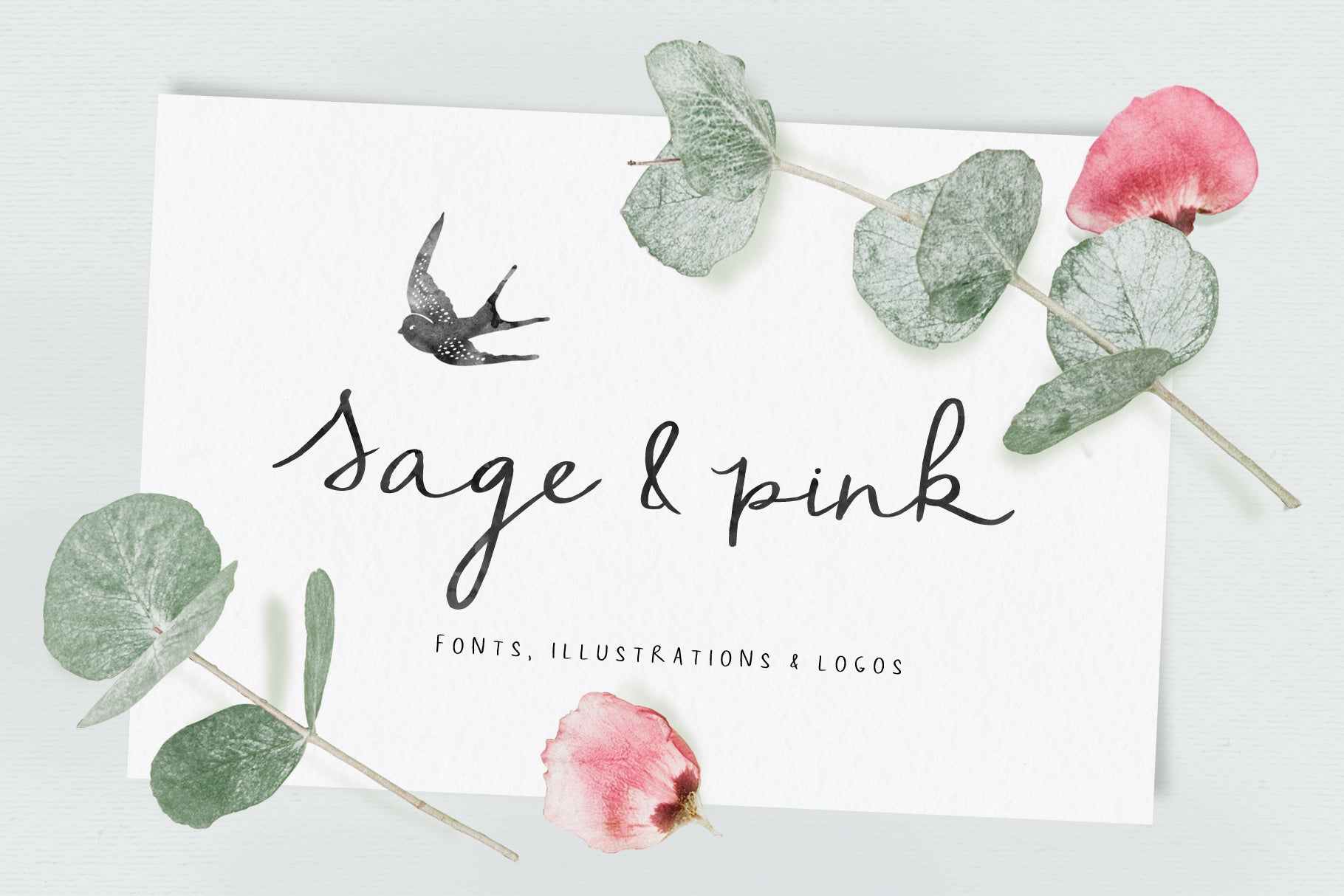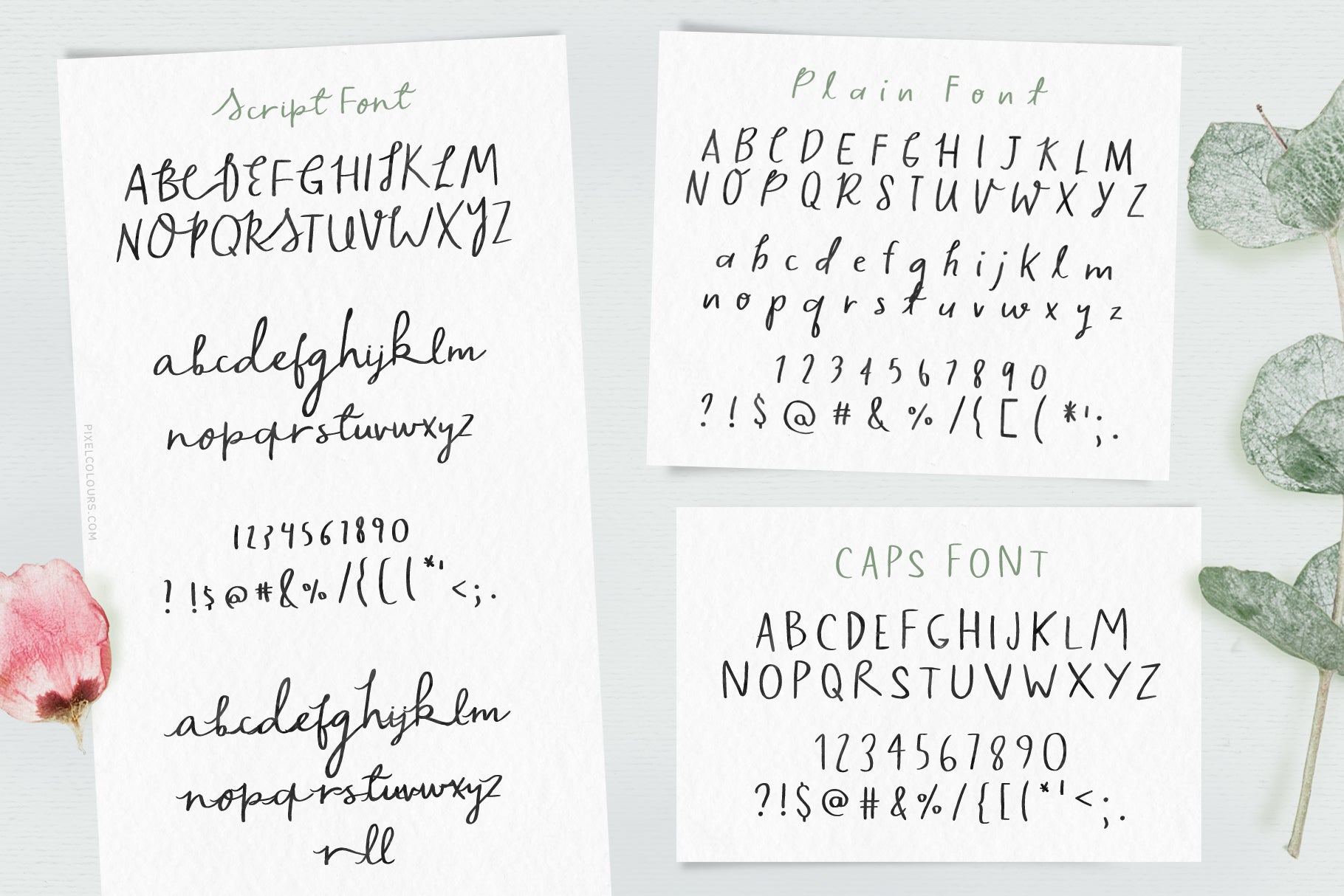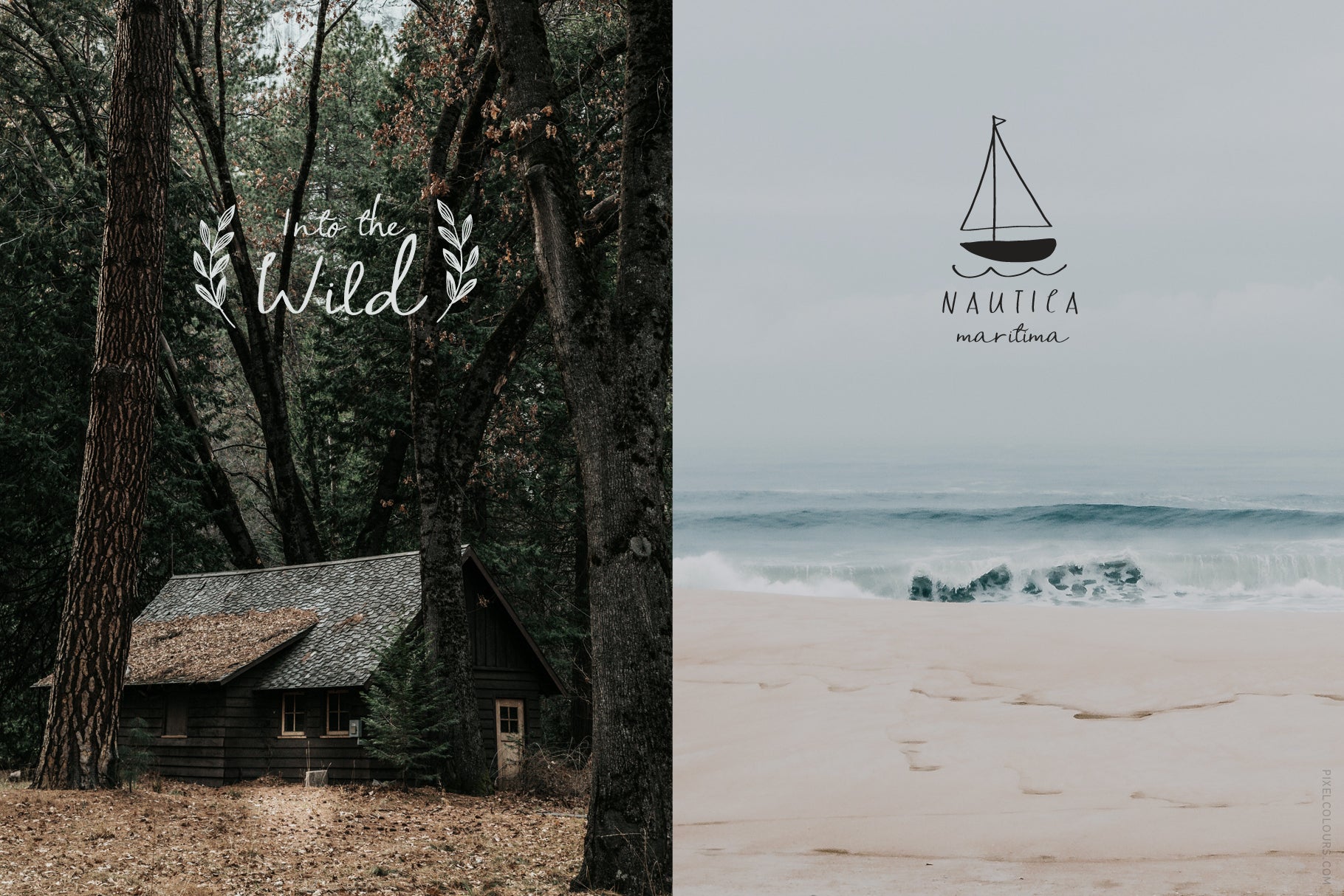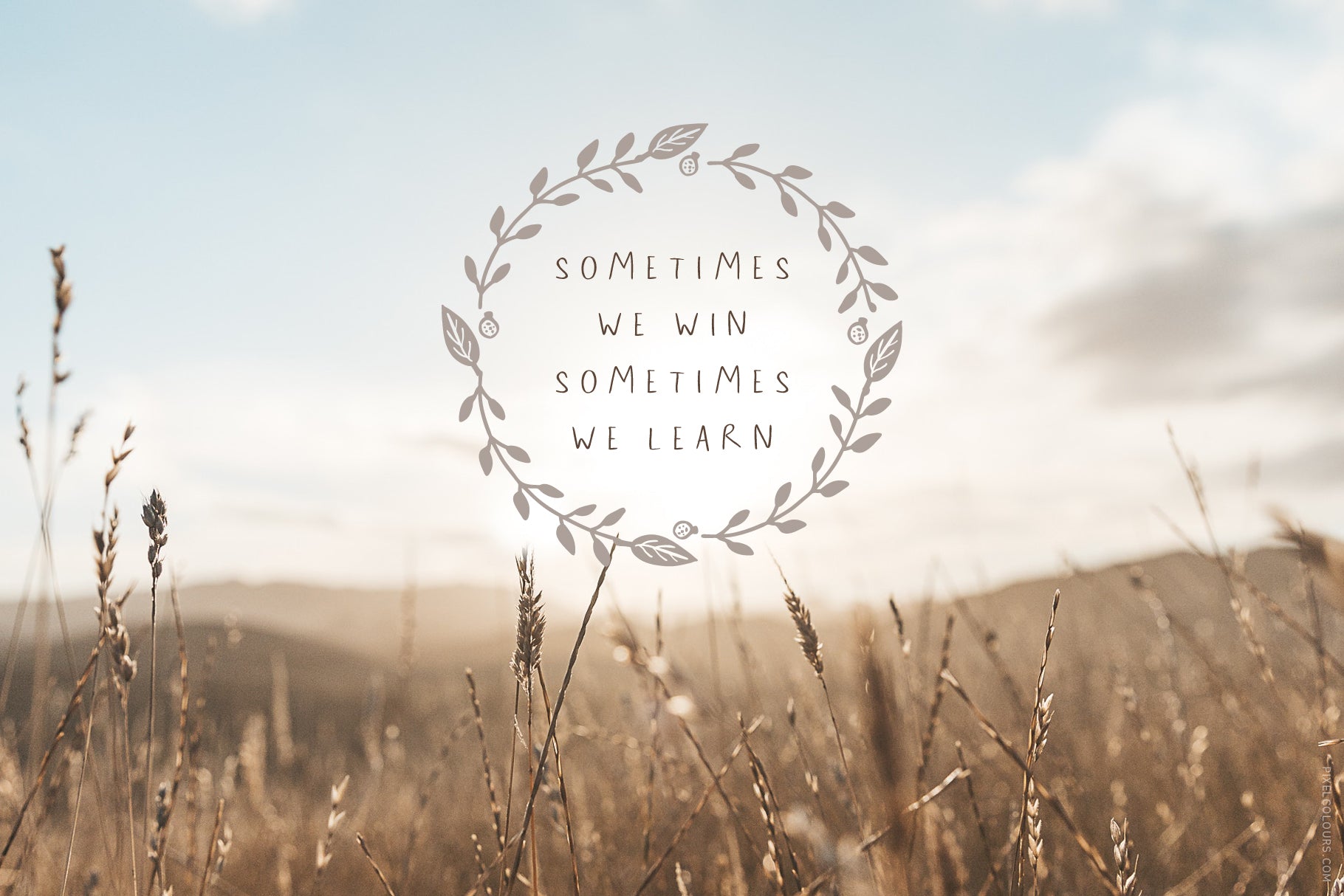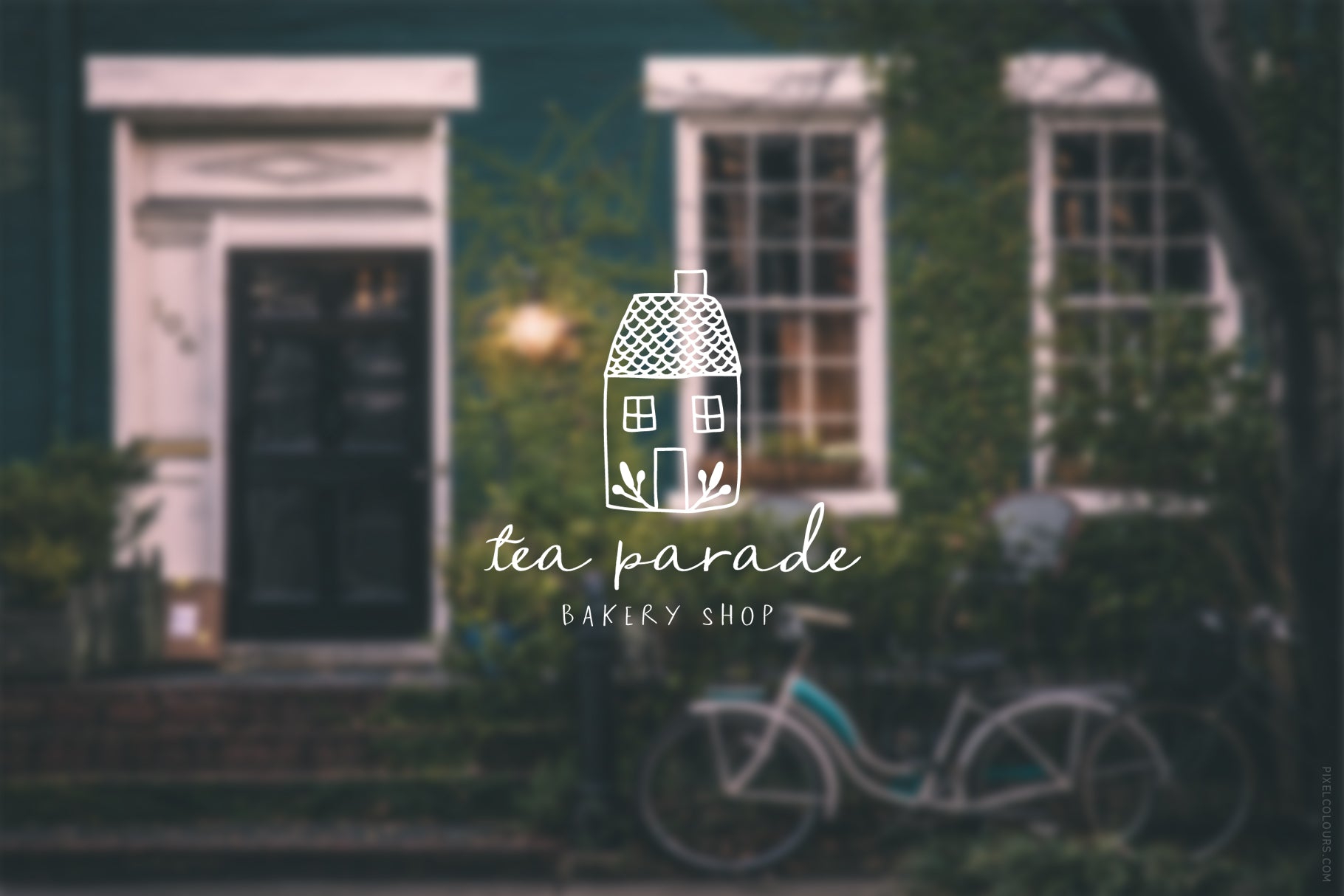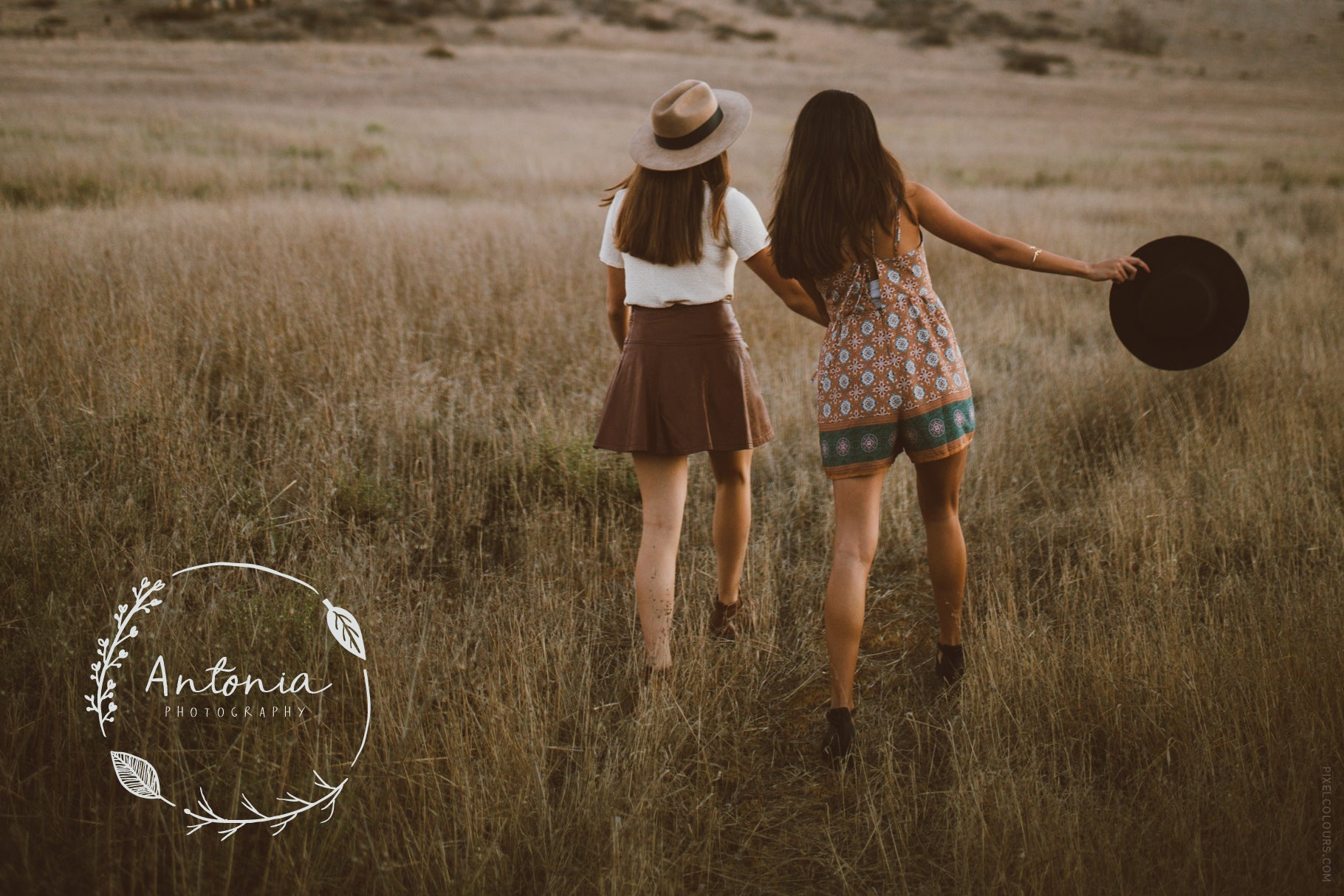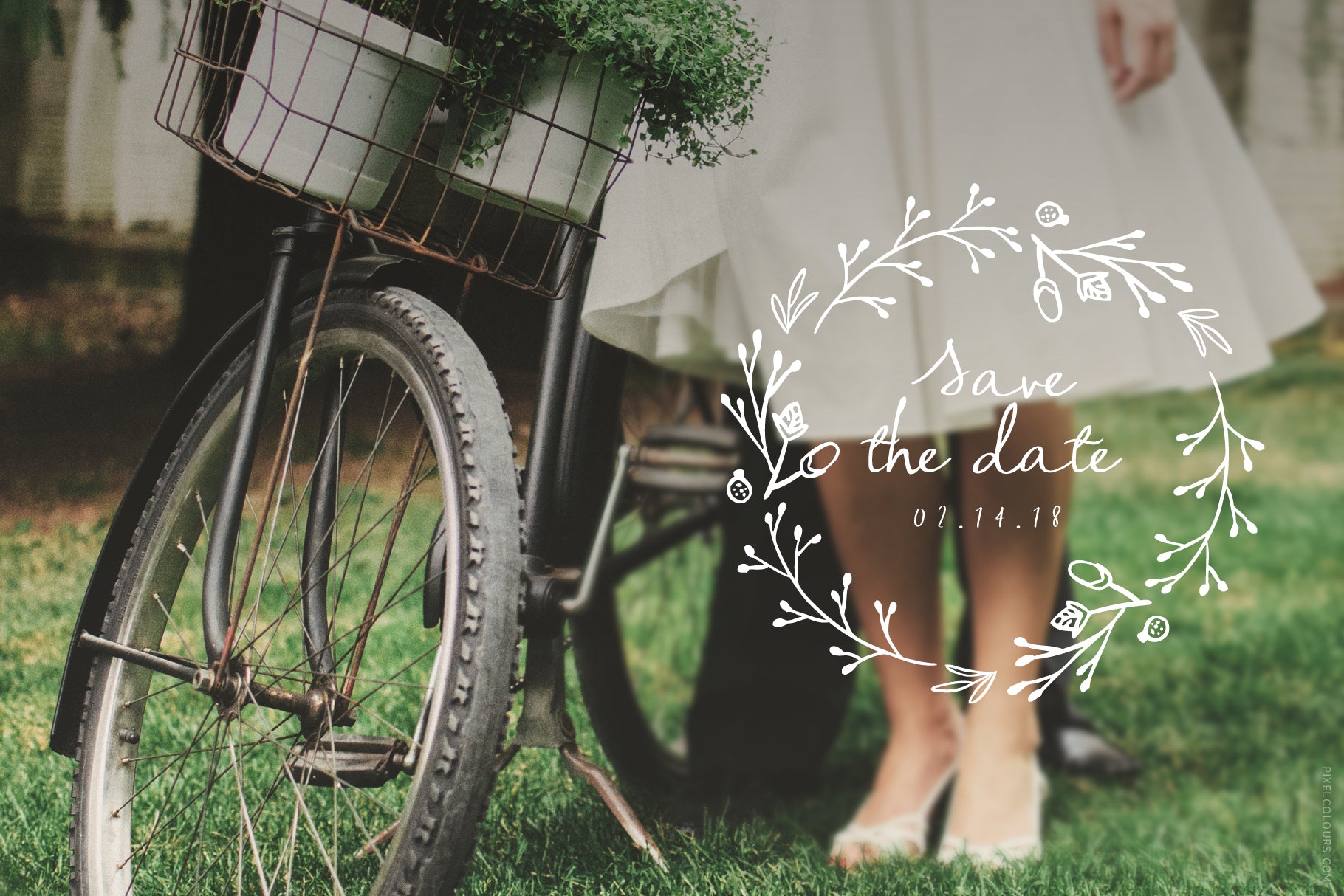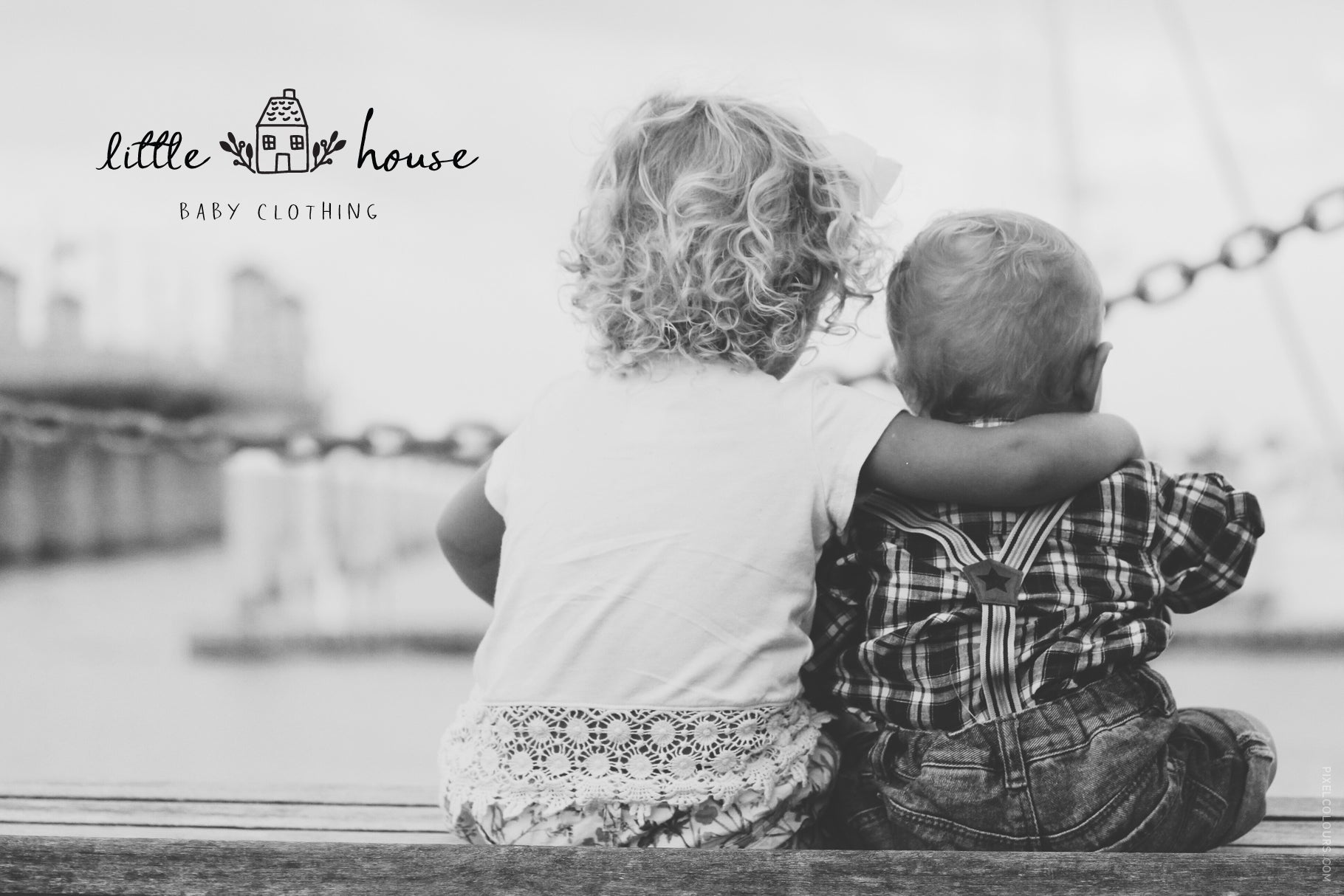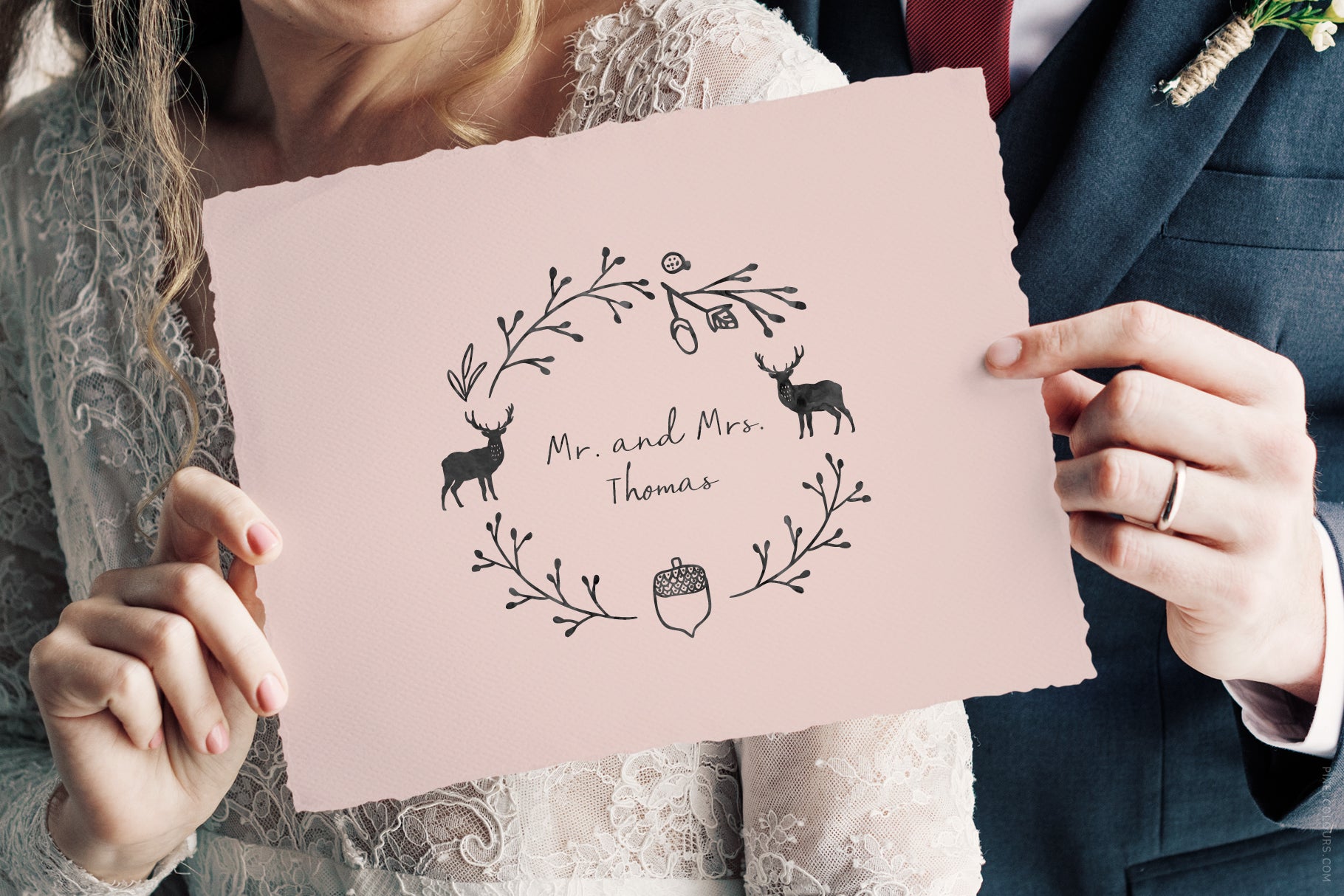
Sage and Pink Font and Logos
Sage and Pink is a beautiful font family loaded with cute fonts, hand drawn illustrations and premade logo templates. It was lovingly designed to look as close as possible to a natural handwriting. Create professional logos, quotes, wedding invitations, stationery, banners for blogs or websites, instagram or pinterest posts, etc.
- Sage & Pink Script: Full set of uppercase and lowercase characters with numerals, punctuaction and alternates/swashes that are also included as a separate font so you can access it quickly in any program.
- Sage & Pink Plain: A second style that allows you to create different feels with the same hand drawn finish.
- Sage & Pink Caps: A beautiful set of uppercase letters to match the other 2 fonts or to be used alone.
- Premade Logo Templates: 27 Carefully designed logo templates ready to use.